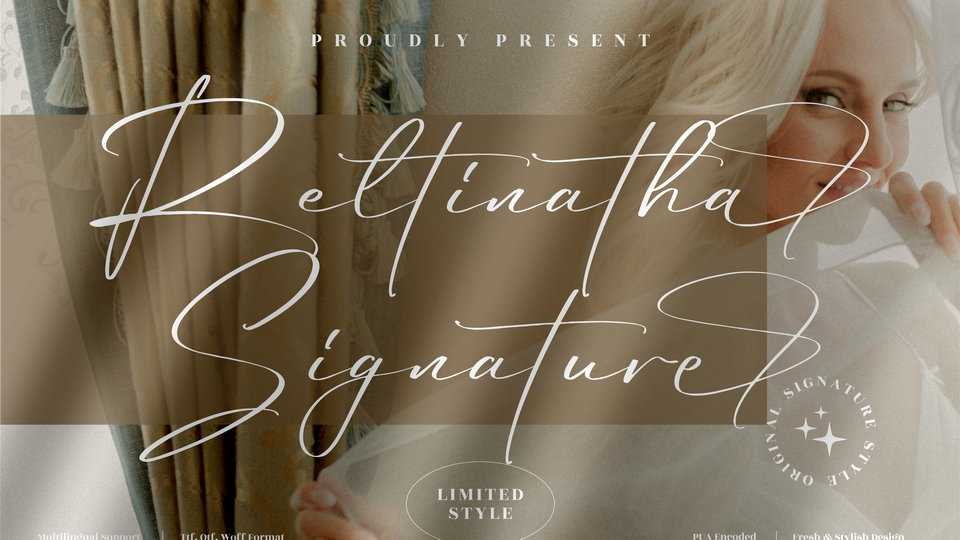
Download Reltinatha Signature font, a chic, refined script typeface that emanates sophistication and elegance. Its stylish alternates and ligatures make Reltinatha Signature the perfect match for any project.
Designer: Perspectype Studio